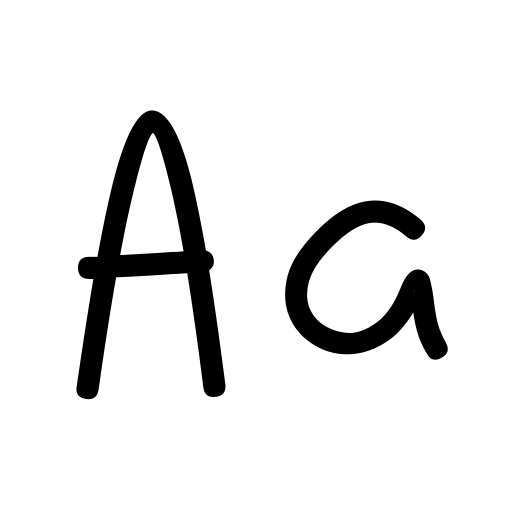
Babynotes is a playful, casual handwritten sans serif font that feels friendly and approachable. Its smooth, rounded strokes with moderate contrast and slightly irregular letterforms give it a warm, informal charm, making it ideal for children’s products, casual branding, and fun, lively designs. This font works well for headlines, logos, and packaging where a personal, human touch is desired.
Babynotes Font
About Babynotes Font
| Font family | Babynotes Font |
| Designer | Letterative Studio |